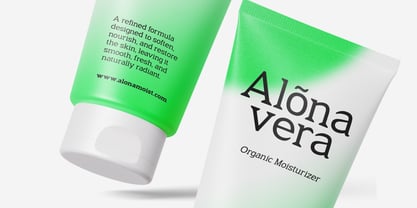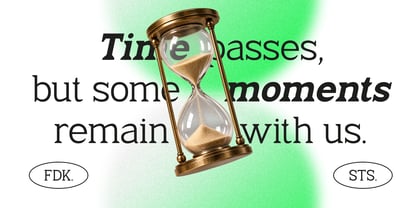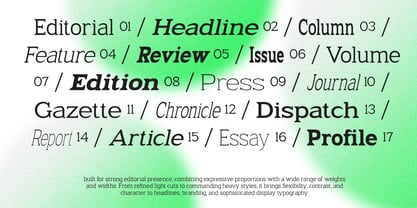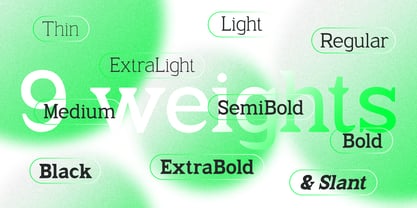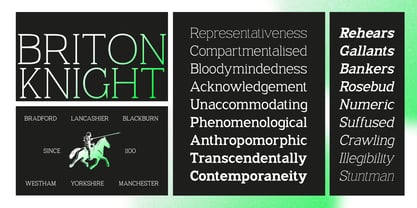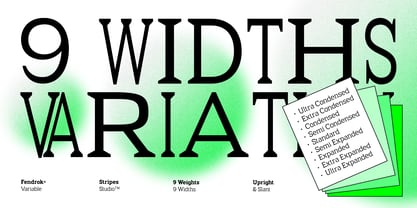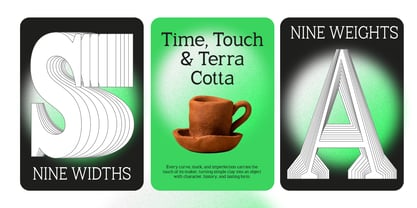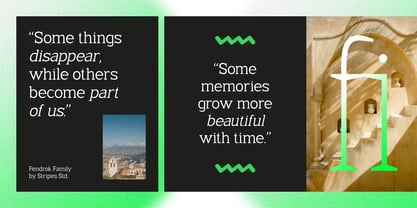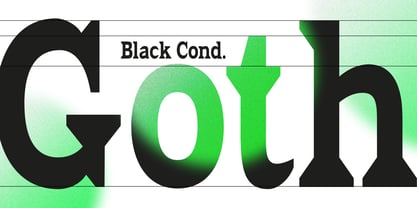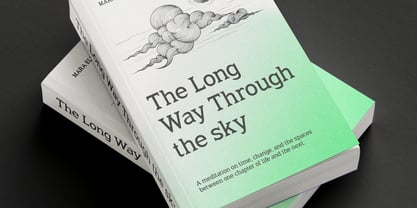
Fendrok
The Fendrok Font Family was designed by Yur Lis and published by Stripes Studio. Fendrok contains 163 styles and family package options.
Fendrok is a sophisticated serif typeface that blends classic elegance with a strong, contemporary character. Designed with graceful curves, distinctive serifs, and balanced proportions, Fendrok brings a sense of luxury, confidence, and timeless beauty to every composition. Its refined letterforms create a polished and memorable appearance, making it an excellent choice for branding, editorial design, logos, invitations, packaging, and sophisticated display typography.
With its elegant yet expressive personality, Fendrok works beautifully for both modern and vintage-inspired designs. Whether used for a bold headline or an elegant brand identity, Fendrok adds a distinctive touch that feels professional, stylish, and effortlessly timeless.